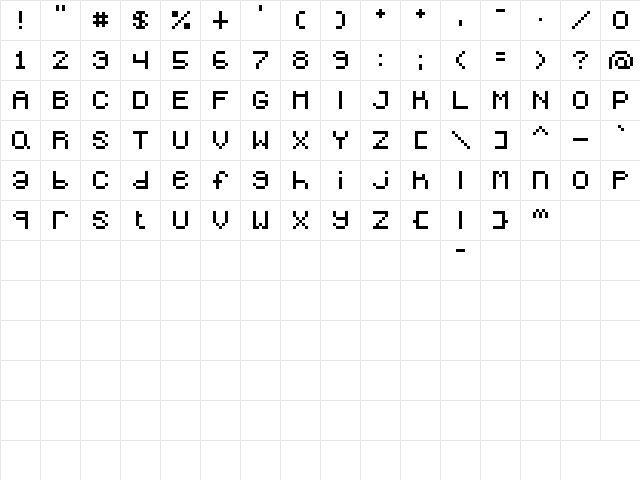
endlink Regular
Design Context for endlink Typeface
endlink offers clean, dependable letterforms without strong stylistic allegiance, making it a practical choice for designers who need flexibility.